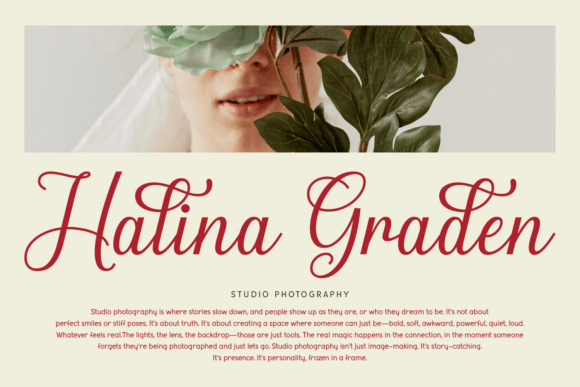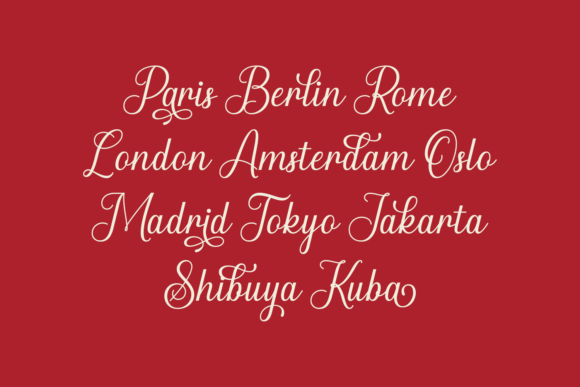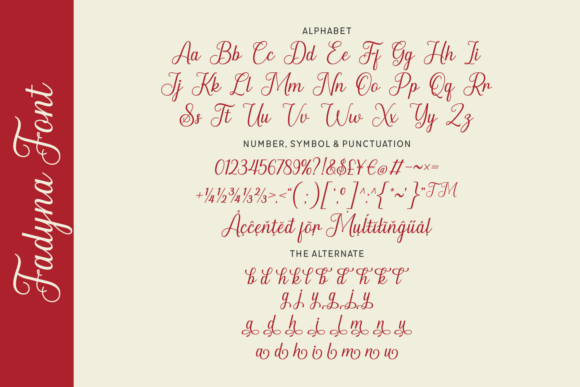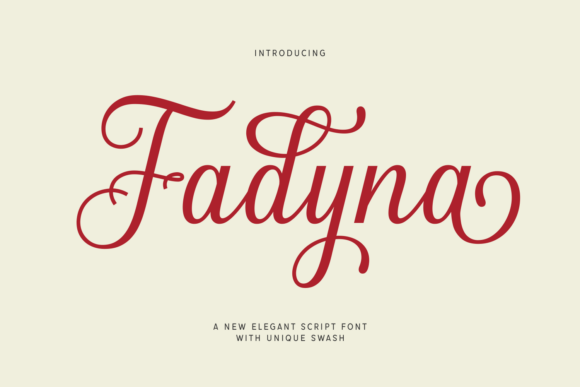
Fadyna Font: Elevate Your Designs with Elegance and Sophistication
In the world of typography, few fonts manage to strike a balance between classic elegance and modern flair. Fadyna Font is one such exceptional typeface that embodies timeless sophistication with a beautifully stylized twist. Designed to bring a touch of refinement and expressiveness to various design projects, Fadyna is an elegant script font that has captured the hearts of designers and crafters alike.
The Essence of Fadyna Font
Fadyna is characterized by its graceful curves, high-contrast strokes, and flowing terminals, which collectively contribute to its luxurious feel. This font is not just a typeface; it’s an experience. It combines the classic structure of calligraphy with a modern touch, making it versatile for a wide range of applications. Whether you’re working on premium branding, wedding stationery, fashion headlines, or formal invitations, Fadyna provides the perfect blend of elegance and expressiveness.
Key Features of Fadyna Font
- Elegant Script Design: Fadyna boasts a beautifully crafted script design that exudes sophistication. Its elegant curves and fluid strokes make it perfect for designs that require a touch of luxury.
- Timeless Sophistication: Unlike trendy fonts that may quickly become outdated, Fadyna’s classic structure ensures it remains relevant and stylish for years to come.
- Beautifully Stylized Swashes: One of the standout features of Fadyna is its beautifully stylized swashes. These swashes add a decorative touch to your designs, making them more visually appealing.
- High-Contrast Strokes: The high-contrast strokes in Fadyna create a dramatic effect, adding depth and dimension to your text. This feature is particularly useful for headlines and titles.
- Flowing Terminals: The flowing terminals of Fadyna contribute to its graceful appearance, making it suitable for designs that require a fluid, connected look.
- Versatility: Fadyna’s design makes it incredibly versatile. It can be used for various projects, including branding, wedding stationery, fashion magazines, and formal invitations.
Applications of Fadyna Font
Fadyna’s unique combination of classic and modern elements makes it suitable for a variety of design projects. Here are some of the ideal applications for Fadyna Font:
- Premium Branding: For brands that want to convey luxury and sophistication, Fadyna is an excellent choice. Its elegant design helps create a lasting impression on customers.
- Wedding Stationery: Wedding planners and stationery designers will love Fadyna for its romantic and elegant feel. It adds a touch of sophistication to wedding invitations, save-the-date cards, and more.
- Fashion Headlines: In the fashion world, typography plays a crucial role in conveying style and elegance. Fadyna’s high-contrast strokes and stylized swashes make it perfect for fashion headlines and magazine titles.
- Formal Invitations: Whether it’s a formal gala, a corporate event, or a baby shower, Fadyna is ideal for creating formal invitations that require a touch of class.
Why Designers and Crafters Love Fadyna Font
Designers and crafters appreciate Fadyna for its ability to elevate their projects with a refined yet expressive aesthetic. Here are some reasons why Fadyna has become a favorite among creative professionals:
- Easy to Read: Despite its elegant design, Fadyna remains highly legible, making it suitable for both headings and body text.
- Customizable: With its range of swashes and stylistic alternates, Fadyna offers plenty of opportunities for customization. Designers can experiment with different styles to match their project’s tone.
- Time-Saving: Fadyna’s comprehensive design means you don’t have to spend hours designing custom typography. This saves time and allows you to focus on other aspects of your project.
- Cross-Platform Compatibility: Fadyna works seamlessly across various platforms and devices, ensuring your designs look great everywhere.
Fadyna Font is more than just a typeface; it’s a design statement. Its elegant script design, timeless sophistication, and beautifully stylized swashes make it an invaluable asset for designers and crafters. Whether you’re working on premium branding, wedding stationery, fashion headlines, or formal invitations, Fadyna provides the perfect blend of refinement and expressiveness. By incorporating Fadyna into your projects, you can elevate your designs and create a lasting impression on your audience.
So, if you’re looking to add a touch of elegance and sophistication to your designs, consider giving Fadyna Font a try. Its versatility, readability, and stunning design make it an excellent addition to any creative project.